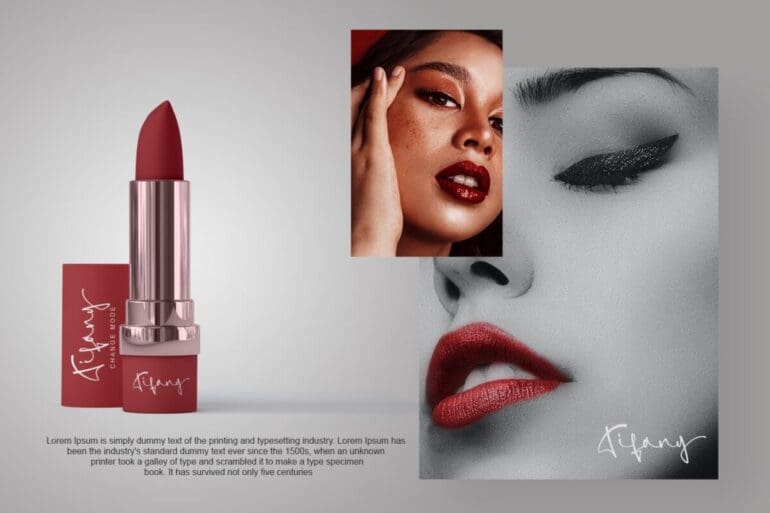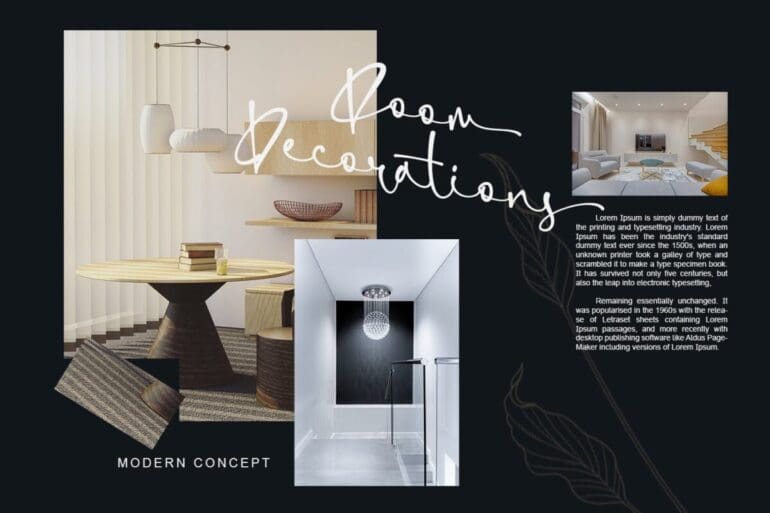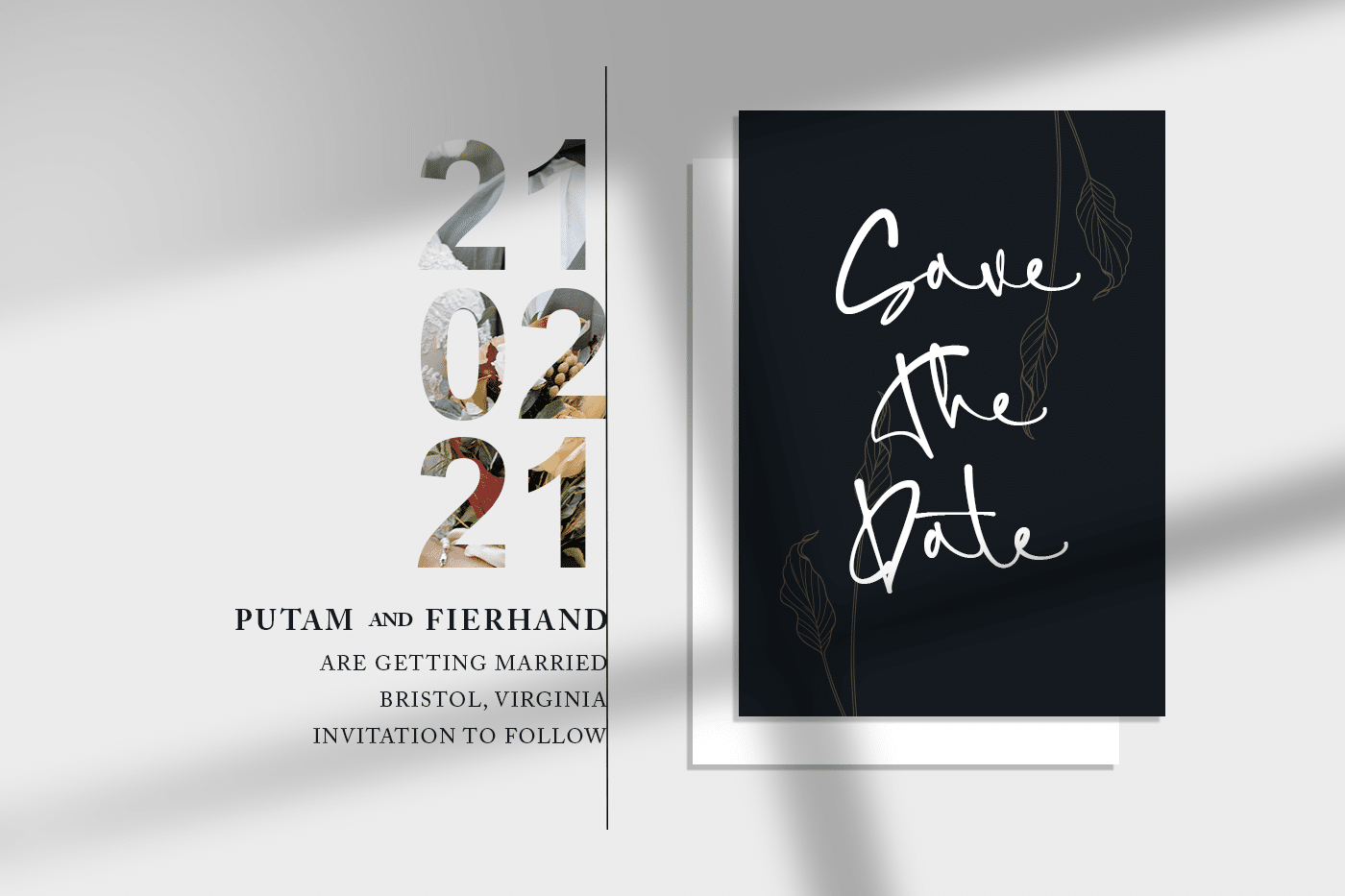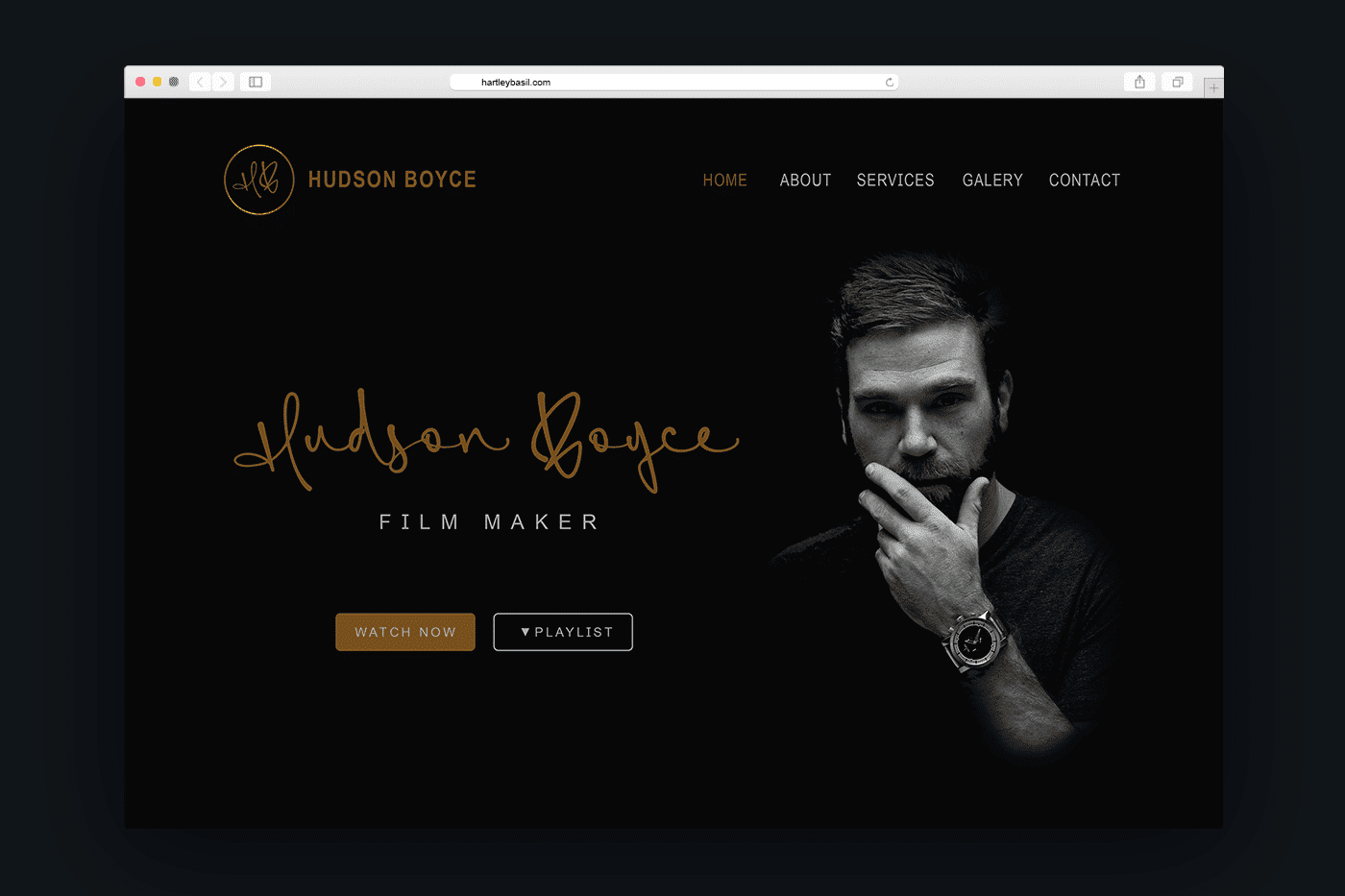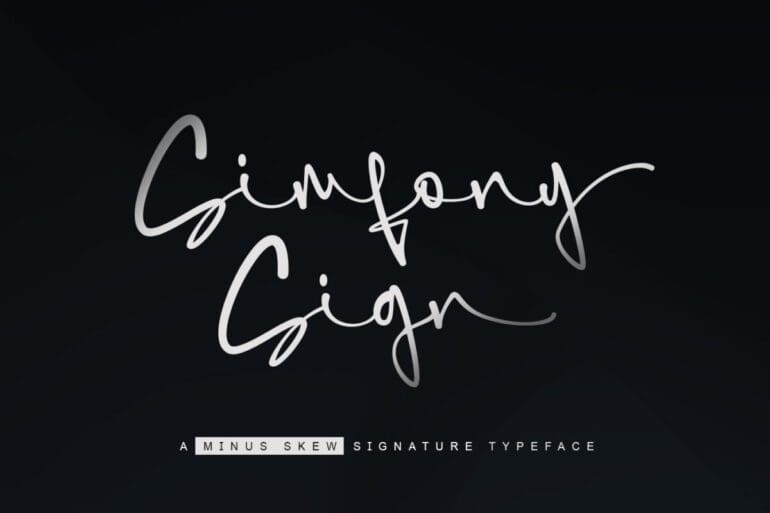
Simfony Sign Font
Simfony Sign font is a unique signature typeface. It’s the perfect font for wedding invitations, stationery, photography, social media posts, product packaging, greeting cards, and much more!